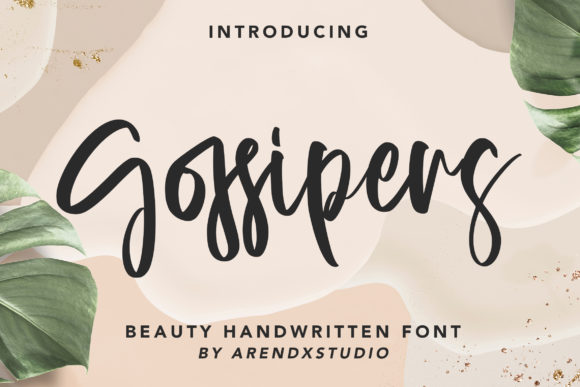
Gossipers Font: The Ultimate Luxury Script Font for Your Design Projects
Are you looking for a font that can add a touch of luxury and sophistication to your design projects? Look no further than Gossipers Font, a relaxed, stylish, and cursive script font that is sure to elevate your designs to the next level. In this article, we’ll take a closer look at Gossipers Font, its features, and how you can use it to create spectacular designs that will leave a lasting impression.
What is Gossipers Font?
Gossipers Font is a beautifully crafted cursive script font that exudes elegance and sophistication. Its relaxed and stylish design makes it perfect for a wide range of design projects, from luxury branding and advertising to packaging and social media graphics. With its incredibly versatile style, Gossipers Font can be used to create a variety of designs that are sure to capture the attention of your audience.
Key Features of Gossipers Font
- Relaxed and Stylish Design: Gossipers Font has a unique and stylish design that is both relaxed and elegant. Its cursive script style makes it perfect for creating designs that are sophisticated and luxurious.
- Incredibly Versatile: Gossipers Font is incredibly versatile, making it perfect for a wide range of design projects. Whether you’re creating a luxury brand identity, designing a social media graphic, or creating a packaging design, Gossipers Font is sure to impress.
- Luxury Spark: Gossipers Font is designed to add a luxury spark to your designs. Its elegant and sophisticated design makes it perfect for creating high-end designs that will leave a lasting impression.
How to Use Gossipers Font
Gossipers Font is easy to use and can be incorporated into a wide range of design projects. Here are a few ways you can use Gossipers Font to create spectacular designs:
- Luxury Branding: Use Gossipers Font to create a luxury brand identity that exudes elegance and sophistication. Perfect for high-end fashion brands, luxury hotels, and premium products.
- Advertising: Gossipers Font is perfect for creating eye-catching advertising campaigns that will capture the attention of your audience. Use it to create stunning billboards, magazine ads, and social media graphics.
- Packaging Design: Add a touch of luxury to your packaging design with Gossipers Font. Perfect for high-end products, luxury food items, and premium cosmetics.
- Social Media Graphics: Use Gossipers Font to create stunning social media graphics that will help you stand out from the crowd. Perfect for Instagram, Facebook, and Twitter.
Benefits of Using Gossipers Font
There are many benefits to using Gossipers Font in your design projects. Here are a few:
- Elegant and Sophisticated: Gossipers Font adds an elegant and sophisticated touch to your designs, making them perfect for high-end projects.
- Increases Brand Value: Using Gossipers Font in your designs can help increase your brand value and make your brand more luxurious.
- Versatile: Gossipers Font is incredibly versatile, making it perfect for a wide range of design projects.
- Easy to Read: Despite its elegant and cursive design, Gossipers Font is easy to read, making it perfect for body text and headlines.
Tips for Using Gossipers Font
Here are a few tips for using Gossipers Font in your design projects:
- Use it Sparingly: While Gossipers Font is elegant and sophisticated, it can be overwhelming if used too much. Use it sparingly to add a touch of luxury to your designs.
- Pair it with Other Fonts: Gossipers Font pairs well with other fonts, such as sans-serif fonts. Experiment with different font combinations to create stunning designs.
- Use it for Headlines: Gossipers Font is perfect for headlines and titles. Use it to create eye-catching headlines that will capture the attention of your audience.
Gossipers Font is a beautifully crafted cursive script font that is sure to add a touch of luxury and sophistication to your design projects. With its incredibly versatile style, Gossipers Font can be used to create a wide range of designs, from luxury branding and advertising to packaging and social media graphics. Whether you’re a designer, marketer, or business owner, Gossipers Font is a great addition to your font library.
- What is Gossipers Font?: Gossipers Font is a relaxed, stylish, and cursive script font that is designed to add a luxury spark to your designs.